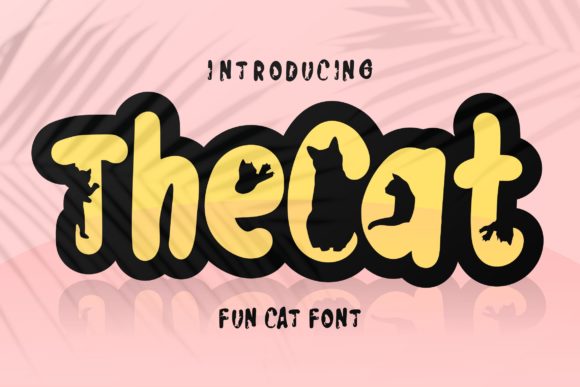
Behold, The Cat Font – A Typographic Symphony Awaiting Your Creative Touch
Unleash the enthralling charm of The Cat Font, a decorative typeface that dances across your screen with its feline-inspired elegance. Step into a world where letters transform into captivating cat ornaments, each stroke imbued with a playful spirit. Dare to embrace its captivating versatility, for this font is a chameleon of style, adapting seamlessly to a myriad of design projects.
Immerse yourself in the boundless possibilities, where The Cat Font weaves its magic. Craft eye-catching logos that purr with personality, design posters that meow with delight, and elevate social media posts to the pinnacle of engagement. Let your imagination roam free as you create invitations that invite a smile, branding that captivates, and marketing materials that leave an indelible mark.
Beyond its aesthetic allure, The Cat Font is a symphony of functionality. Its meticulously crafted characters ensure crisp, clean rendering across all platforms, guaranteeing your designs a polished and professional finish. Whether you're a seasoned designer or just starting your creative journey, this font is your trusted companion, guiding you toward typographic excellence.
With The Cat Font as your creative ally, you'll discover a world where ordinary text transforms into extraordinary art. Its graceful lines and playful details add a touch of whimsy to any project, inviting viewers to engage with your content in a way that captivating words alone cannot achieve. This font is not just a collection of characters; it's an open invitation to unleash your inner artist.
So, embark on this enchanting journey with The Cat Font, where creativity knows no bounds. Let your imagination soar as you explore the myriad ways this font can transform your designs into works of art. Embrace the feline spirit and watch as your projects come alive with a captivating charm that will leave a lasting impression on all who encounter them.